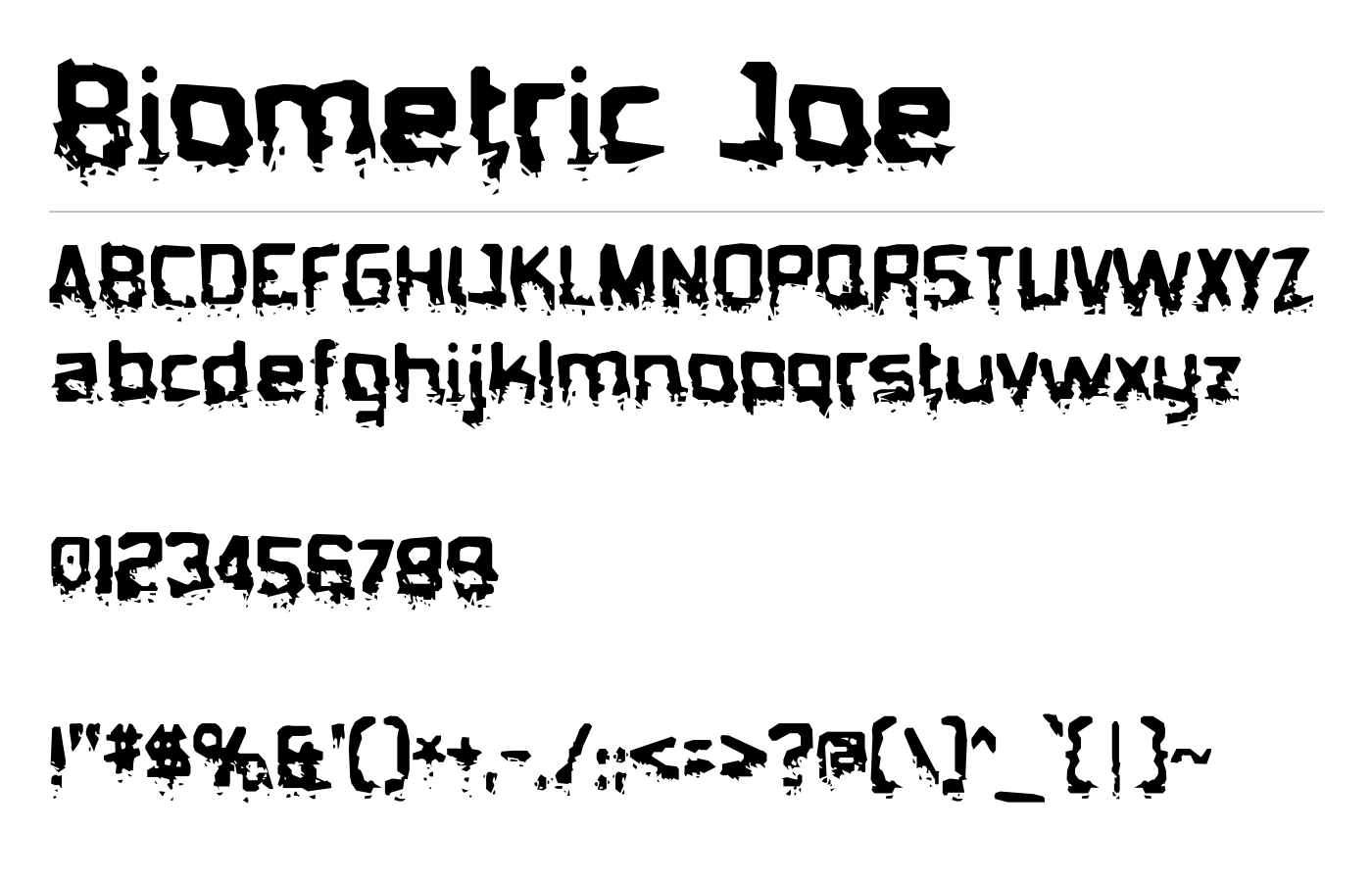
Biometric Joe is a bold, sans serif display font with a rugged, distressed texture that gives it a futuristic, tech-inspired feel. Its strong, geometric shapes combined with a digital glitch effect make it perfect for edgy, science fiction, or cyber-themed designs. This font works best in headlines, posters, and branding where a bold, attention-grabbing impact is desired.
Biometric Joe Font
About Biometric Joe Font
| Font family | Biometric Joe Font |
| Designer | Raymond Larabie |